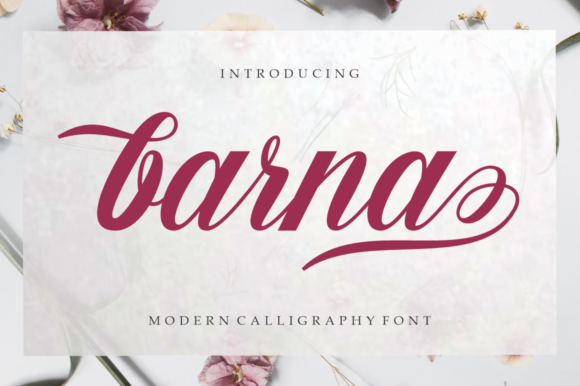
Introducing Barna Font: Elevate Your Designs with Modern Calligraphy
In the world of typography, calligraphy fonts have always been a popular choice for designers looking to add a touch of elegance and sophistication to their work. One such font that has gained significant attention in recent times is Barna Font. This modern calligraphy font is designed to bring a reflection of modern style and elegance to your designs, making it an ideal choice for a wide range of creative projects.
What is Barna Font?
Barna Font is a modern calligraphy font that boasts a unique and stylish design. Its elegant strokes and beautiful swashes make it perfect for adding a touch of sophistication to any design project. Whether you’re working on a branding project, a wedding invitation, or a packaging design, Barna Font is sure to impress.
Key Features of Barna Font
- Modern Calligraphy Design: Barna Font features a modern calligraphy design that is both elegant and stylish.
- Elegant Strokes: The font features elegant strokes that are perfect for adding a touch of sophistication to your designs.
- Beautiful Swashes: Barna Font comes with beautiful swashes that can be used to add a decorative touch to your designs.
Technical Details of Barna Font
Here are some technical details of Barna Font:
- Font Type: Barna Font is a modern calligraphy font.
- Glyphs and Swashes: The font features a wide range of glyphs and swashes that can be accessed with ease.
In conclusion, Barna Font is a modern calligraphy font that is perfect for designers looking to add a touch of elegance and sophistication to their work. With its elegant strokes, beautiful swashes, and PUA encoding, Barna Font is a versatile font that can be used in a wide range of design projects. Whether you’re working on a branding project, a wedding invitation, or a packaging design, Barna Font is sure to impress.